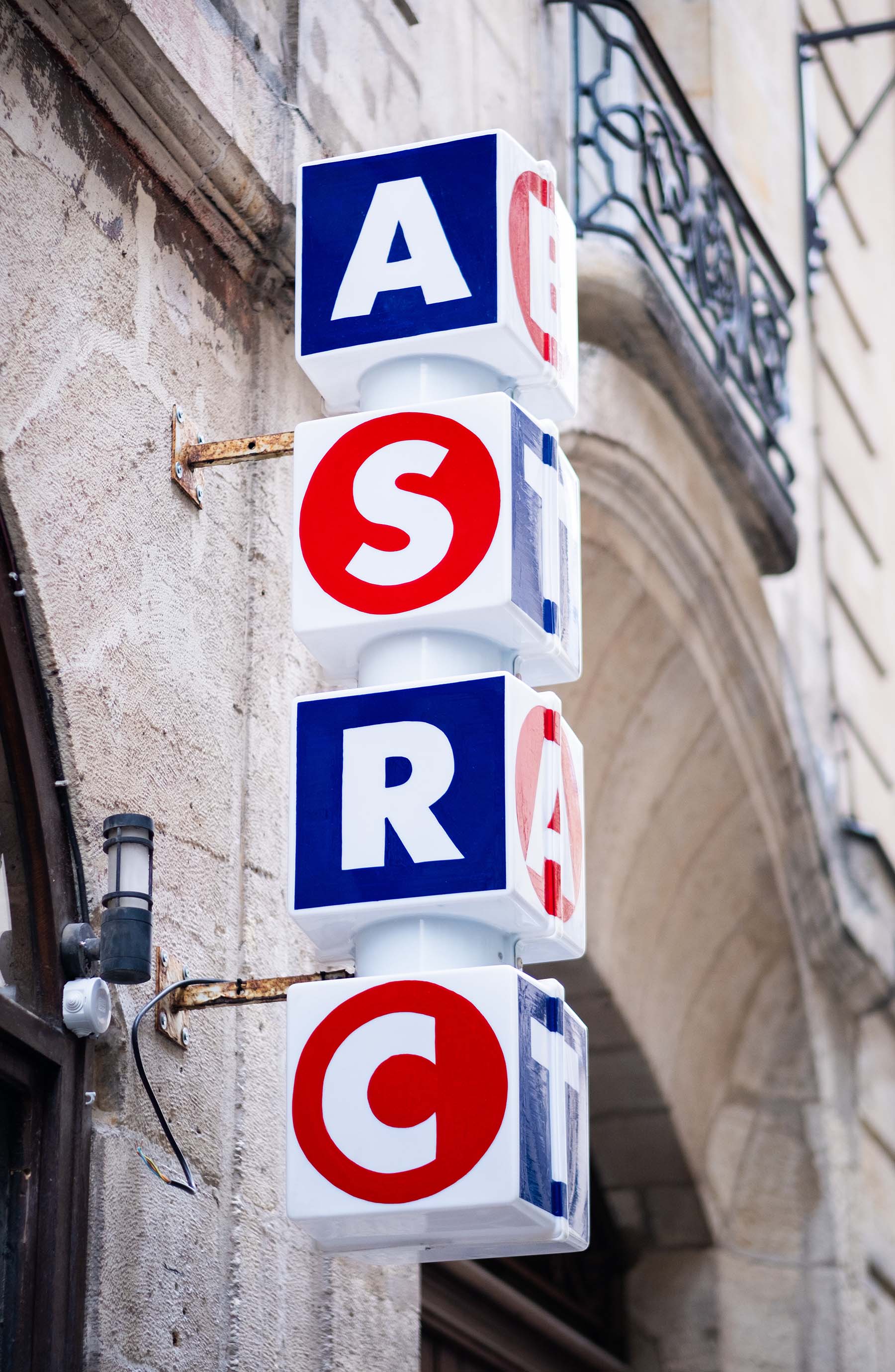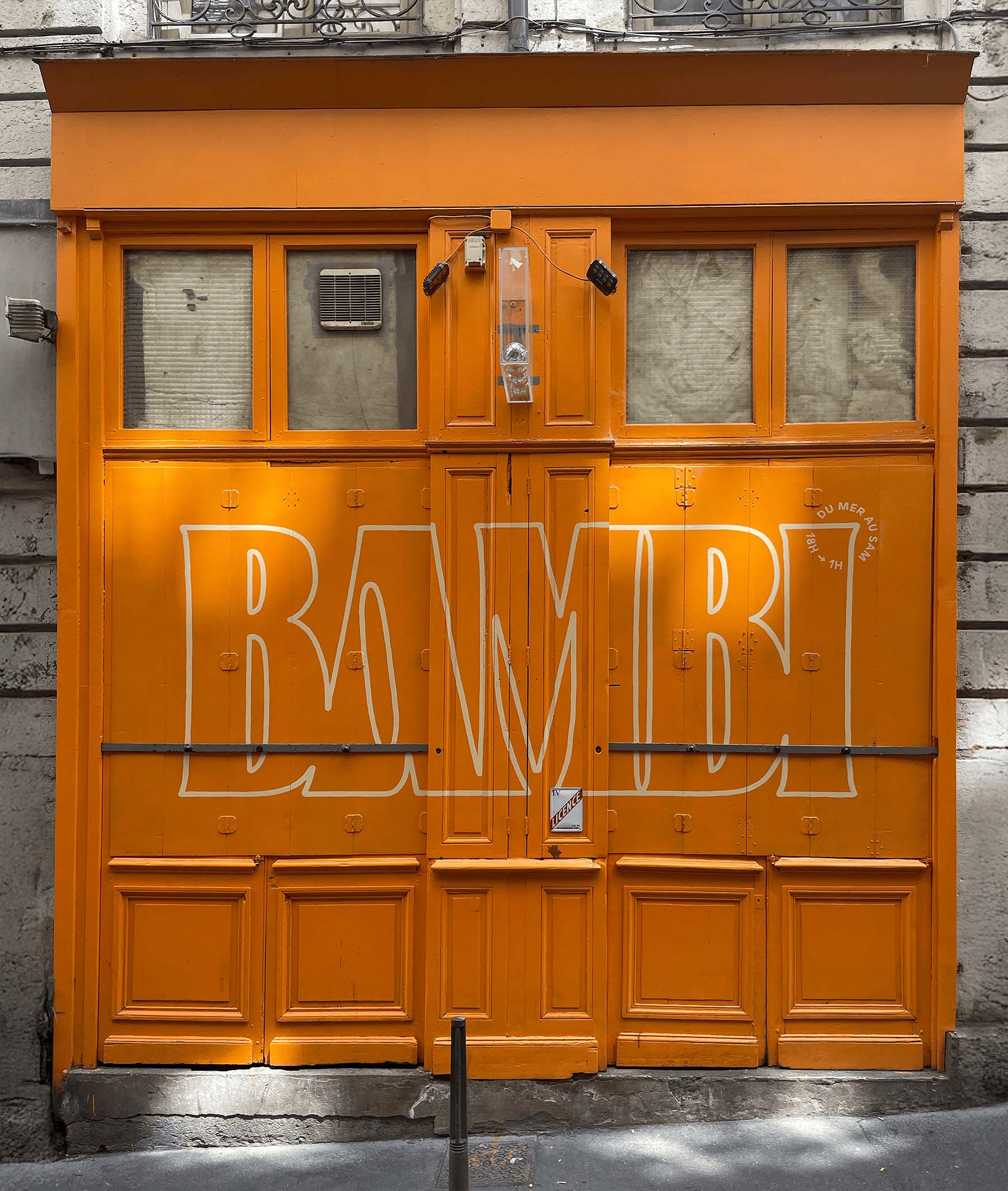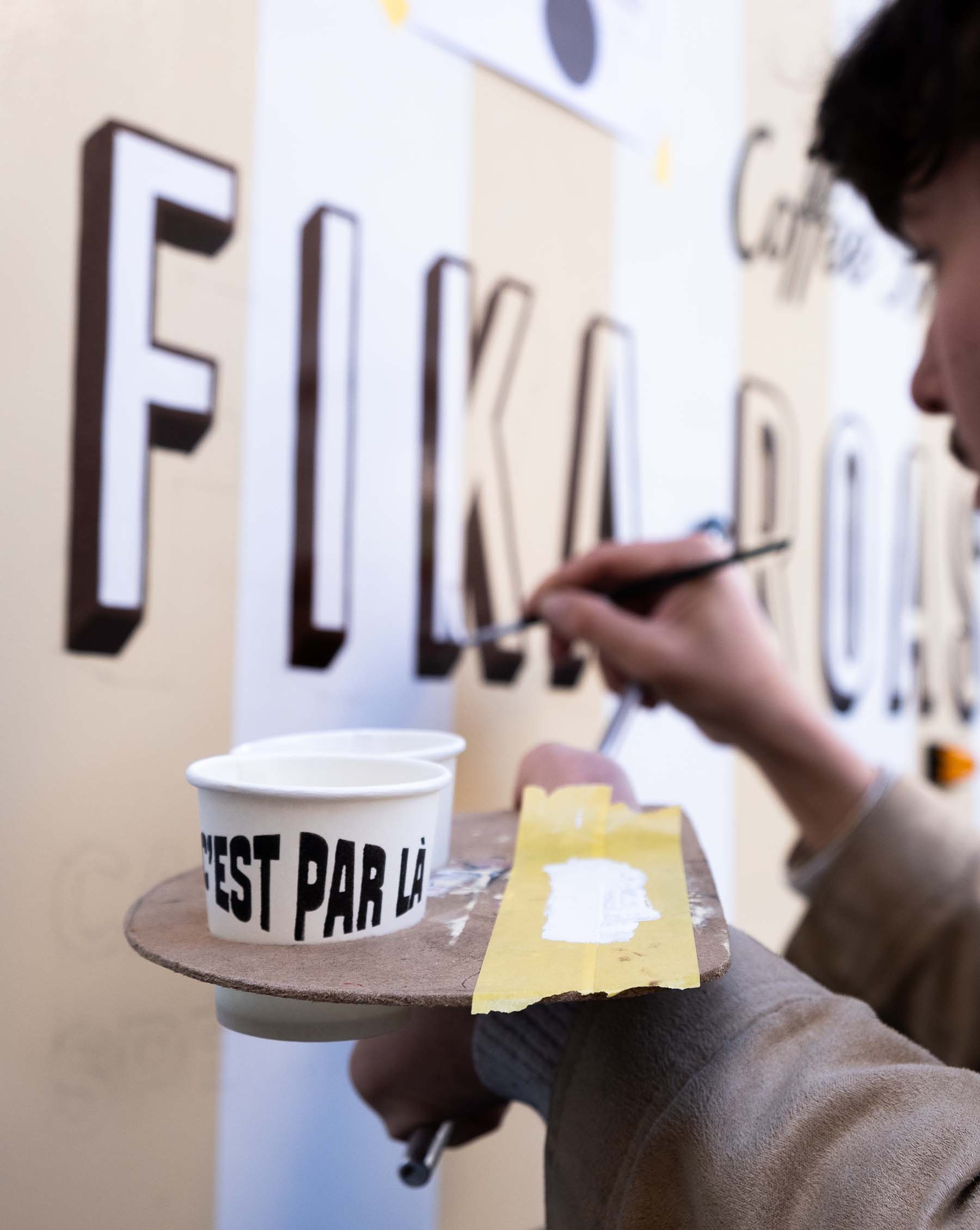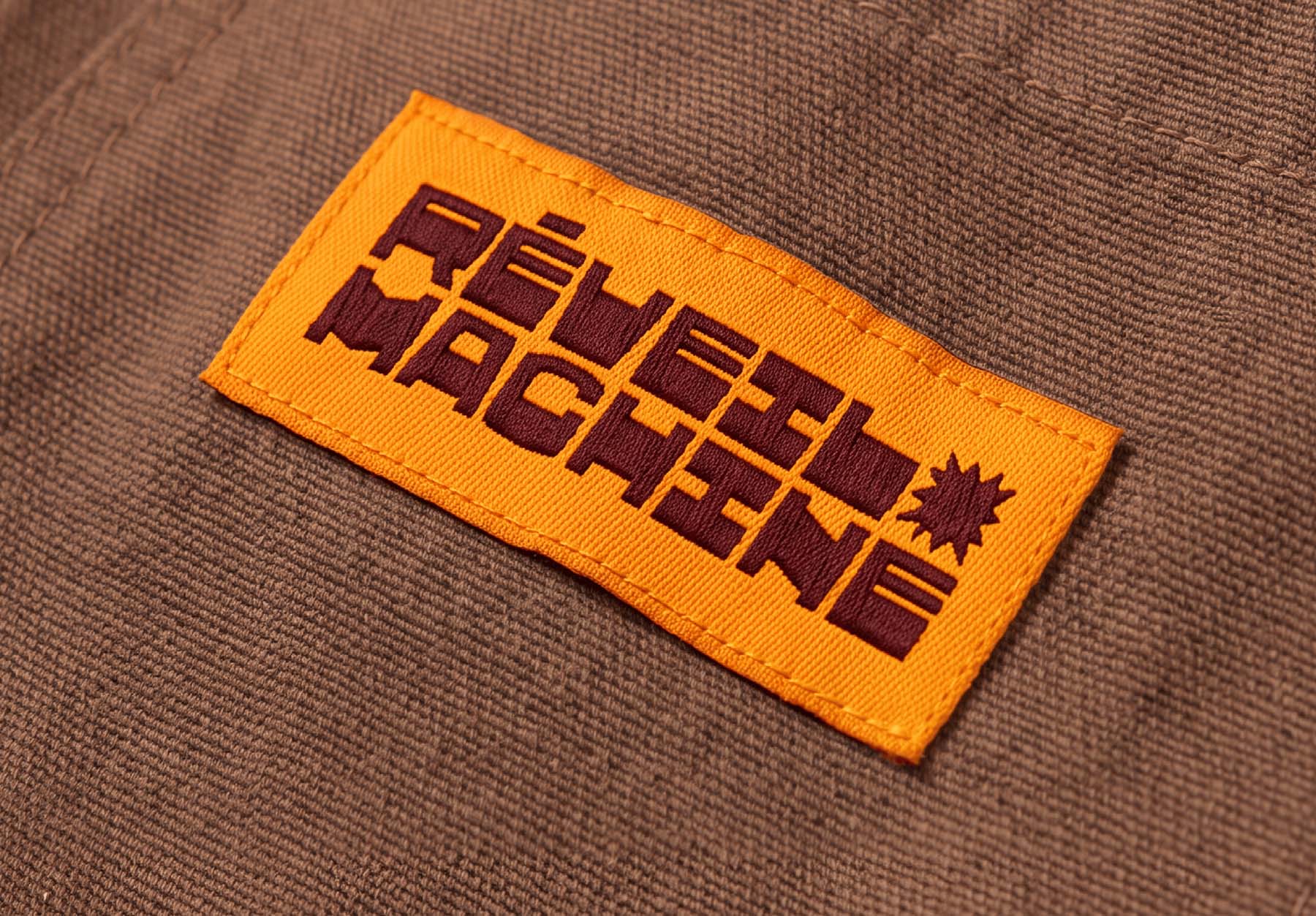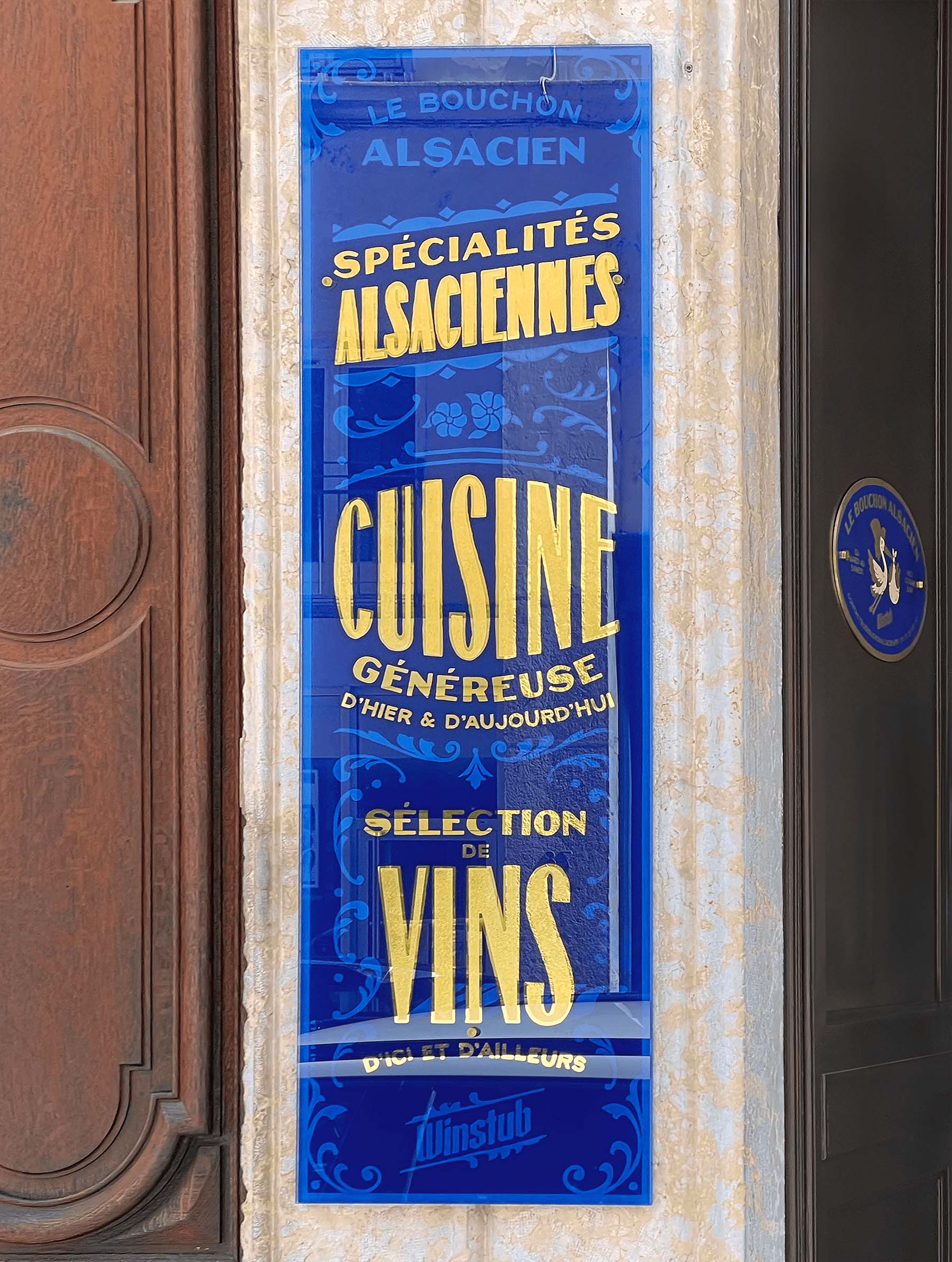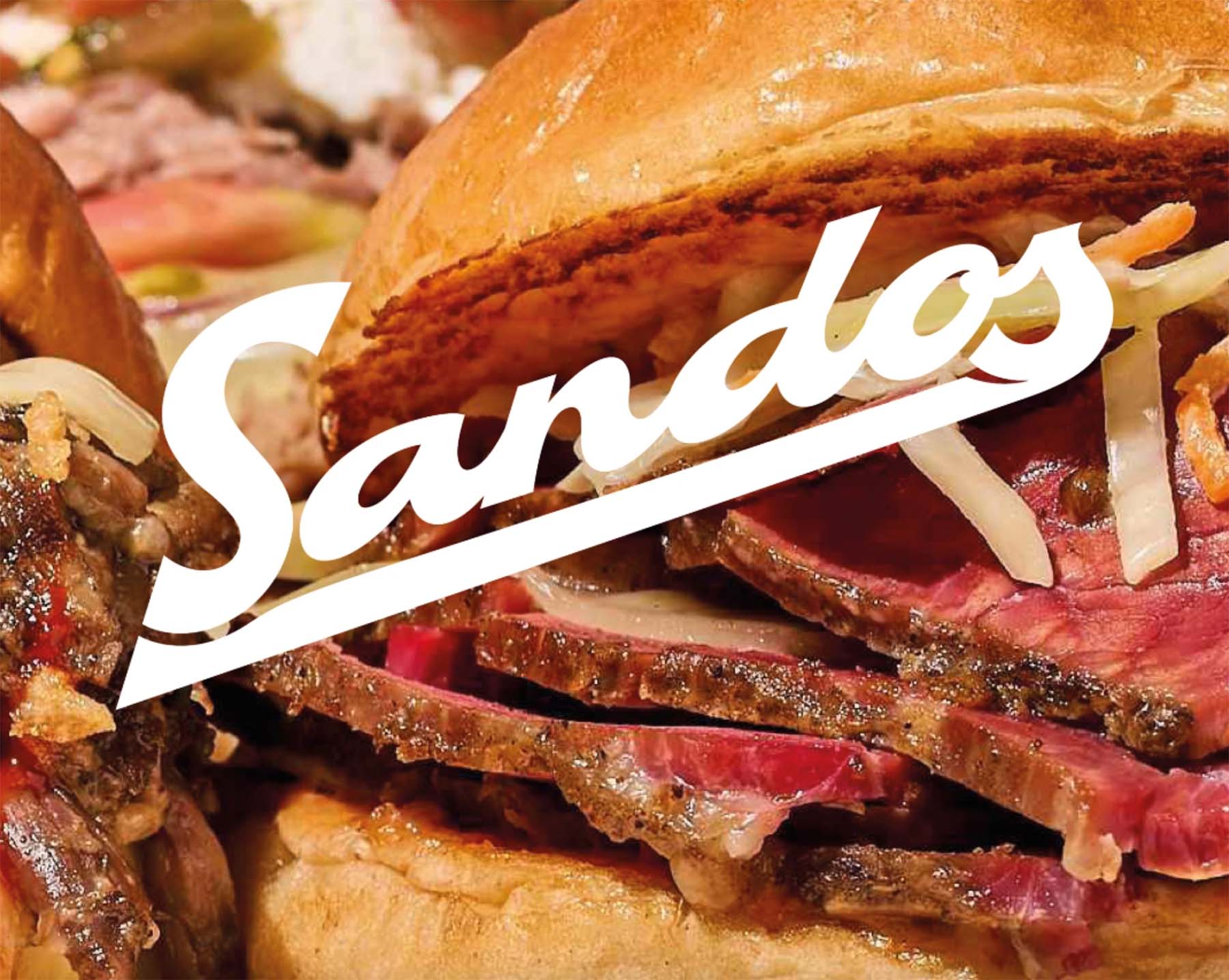
On Letters and Resourcefulness: A Conversation with Jérémy Raucq
Recently, thanks to his creative use of our Kunsthandel font, we discovered the work of Jérémy Raucq, a designer and sign painter based in Lyon, France. In this interview, we talk with Jérémy about the craft of hand-painted lettering, the role of resourcefulness in his practice, and the enduring appeal of hand-painted signs in urban spaces.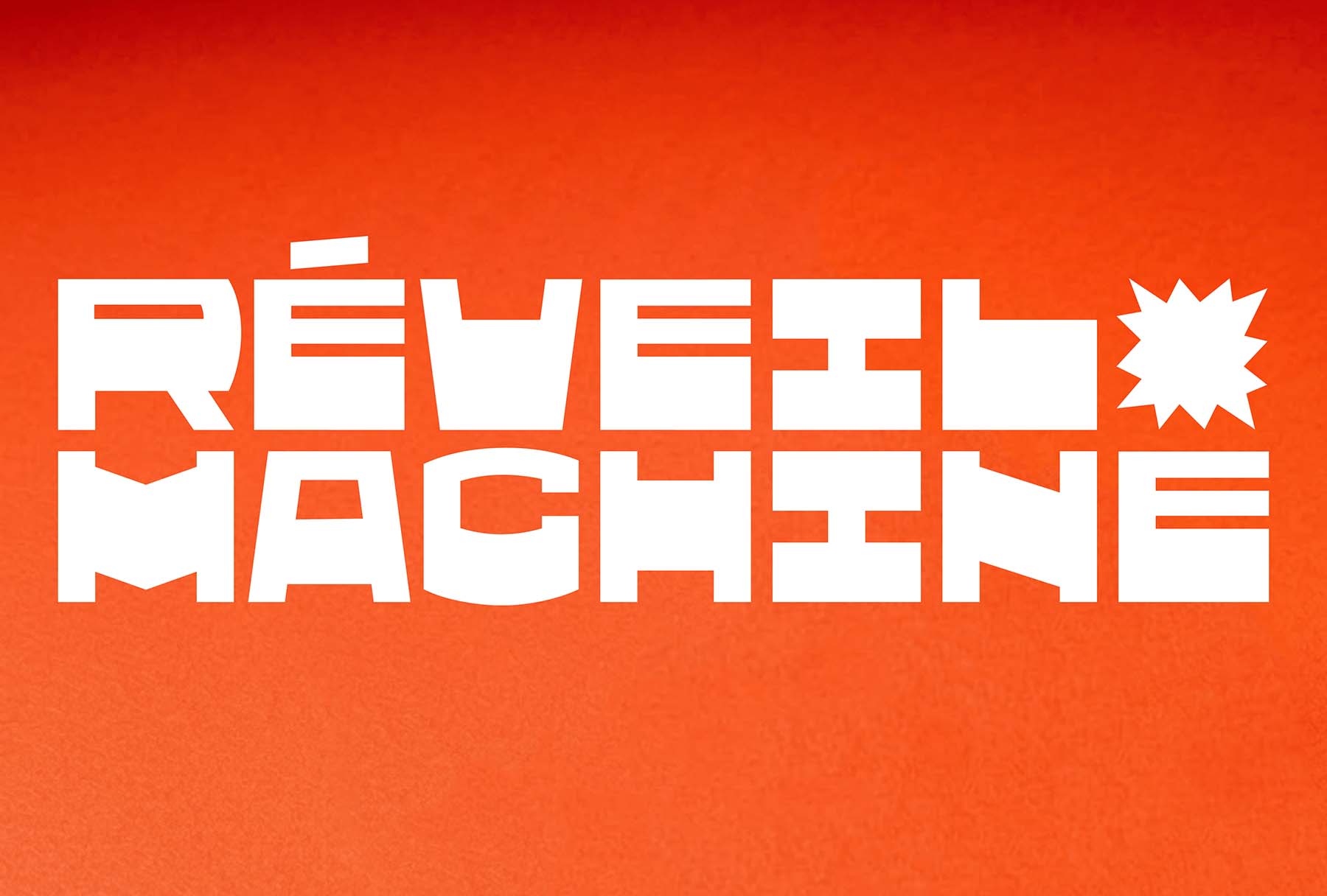
When someone visits your website, one of the first things they notice is that you seem equally at home with graphic design and sign painting. How did you learn these two disciplines? Which came first: graphic design or sign painting?
I was first trained in graphic design, specializing in brand identity, before I was able to offer sign painting to my clients as part of their projects. Always with the idea of covering a project from concept through execution.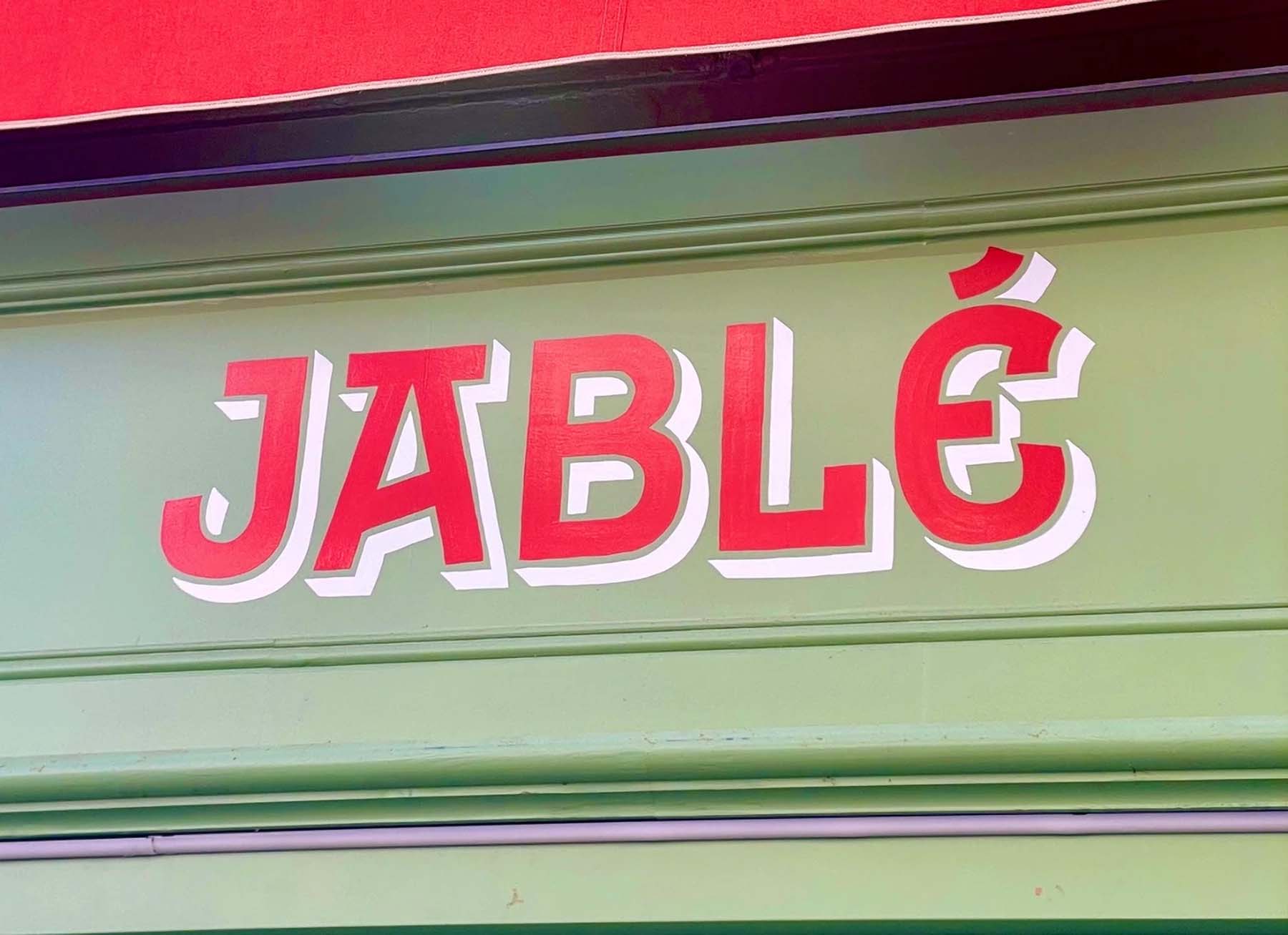
Regarding graphic design, did you receive any formal training at an art or design school, or are you largely self-taught?
I completed several years of graphic design training, specializing first in print, then in web design and development. My path has been quite atypical, full of twists and turns between manual trades and technical skills, long before I even committed to studying graphic design. That’s probably why I still love learning and exploring new techniques, practices, and materials in my work today.
What was the graphic design environment like where you grew up? Was there a particular visual culture around you that inspired you to become what you describe as a “Graphic Artisan”?
I come from a rural area near the sea, in the south of France. I always learned to make things with limited resources, using raw, unprocessed, handmade materials, and always thinking about repairing before replacing. Those constraints shaped the way I work today, somewhere between resourcefulness and a kind of easygoingness inherited from that setting.
Sign painting is traditionally a craft learned by working alongside an experienced painter who acts as a mentor. Was that the case for you, or did you learn through courses and other forms of training?
Self-taught in this practice. I later deepened my approach through incredible workshops with Morgane Côme (FR) and Mike Meyer (US). I now work under the name C’est par là, mainly in the restaurant and bar sector, creating painted signs, gold leaf gilding, murals, and custom work, and I enjoy revisiting and varying supports and techniques.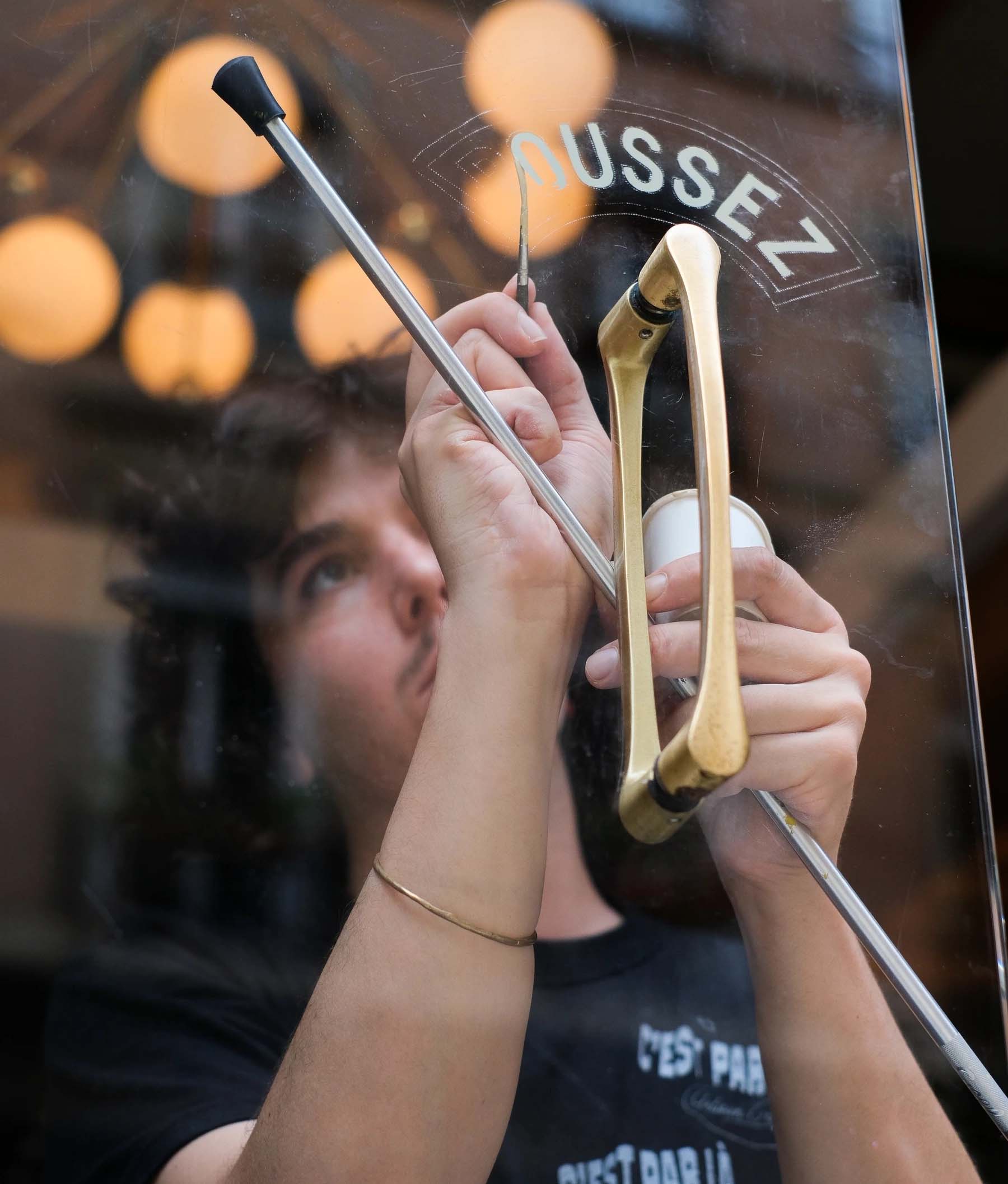
Looking at your work, there seems to be a strong demand for your services. Do you feel that shopkeepers and businesses in Lyon appreciate the particular qualities and craftsmanship of genuine hand-painted signs?
I feel that more and more shopkeepers, especially in the food and hospitality sector, want a completely personalized storefront, unique and hand-painted. It’s a choice that adds value to their service, products, and concept, thanks to the extra soul that lettering painting brings. For them it's also an ecological choice, a nod to the past that pushes back against the ugly stickers that have taken over too much of our cities’ aesthetics.
Finally, besides choosing typefaces you like from foundries such as ours, have you ever been tempted to design your own fonts?
Yes, definitely. I’ve already designed custom lettering and partial alphabets for specific projects, but always in a limited way, just enough letters to cover what a particular job needed. What I’d really love is to take the time to design a complete, standalone typeface from scratch, it’s a project I want to make time for in the next few years.